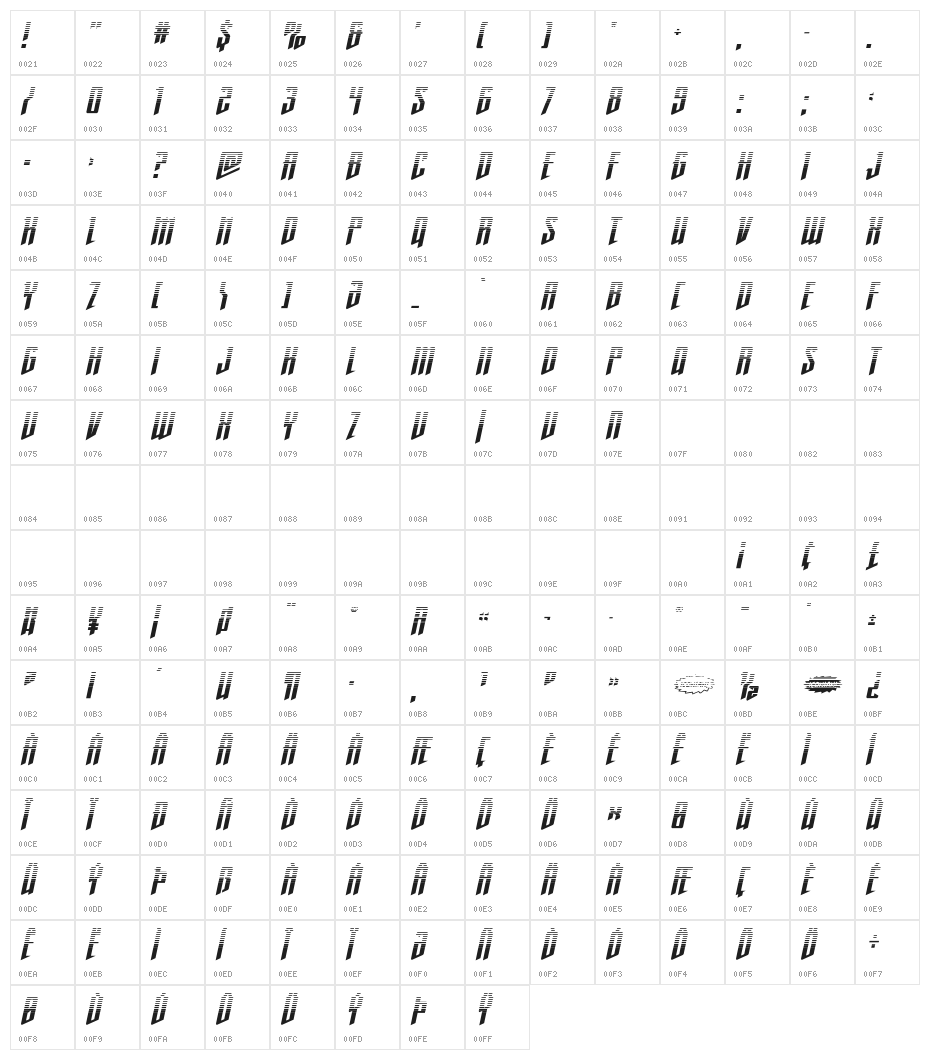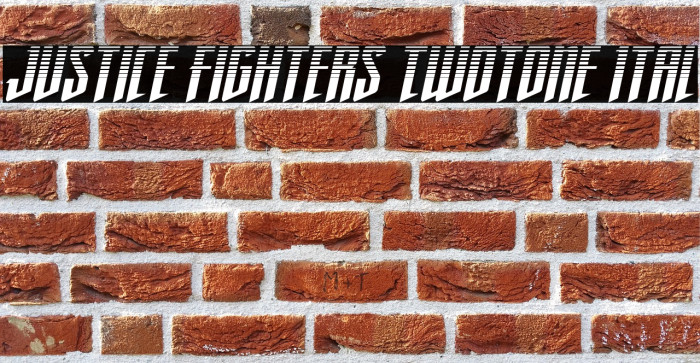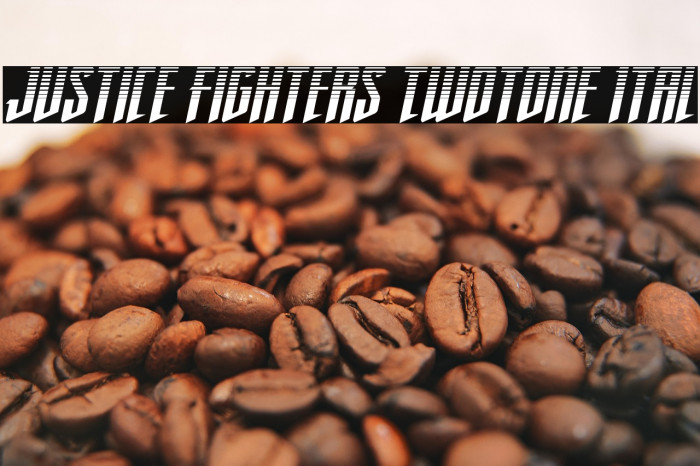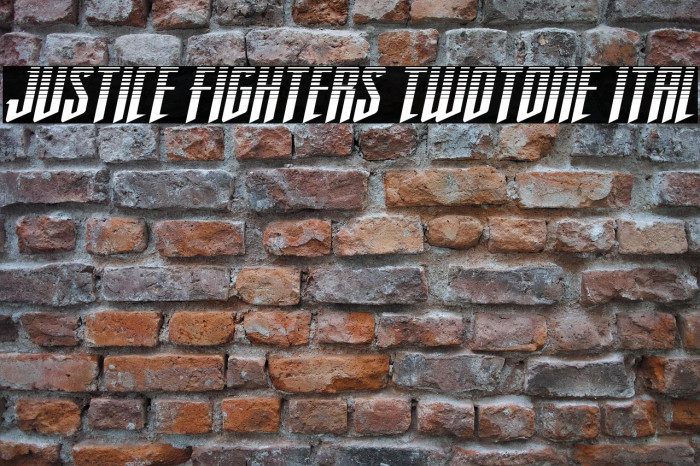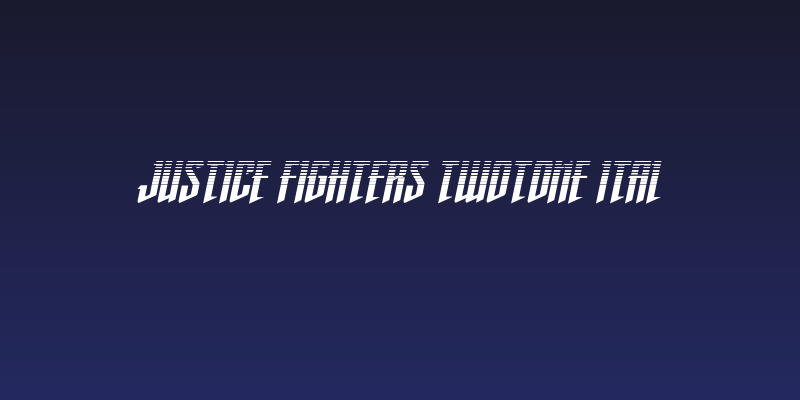
Justice Fighters Twotone Ital Font
Justice Fighters Twotone Ital Description
This font features a dynamic and bold design with a distinct two-tone effect, creating a sense of movement and energy. The characters are italicized, adding to the sense of speed and urgency. The uppercase and lowercase letters are consistent in style, with sharp angles and a futuristic aesthetic. The numbers and special characters maintain the same energetic style, making the font versatile for various uses. The overall design is eye-catching and modern, suitable for projects that require a strong visual impact.